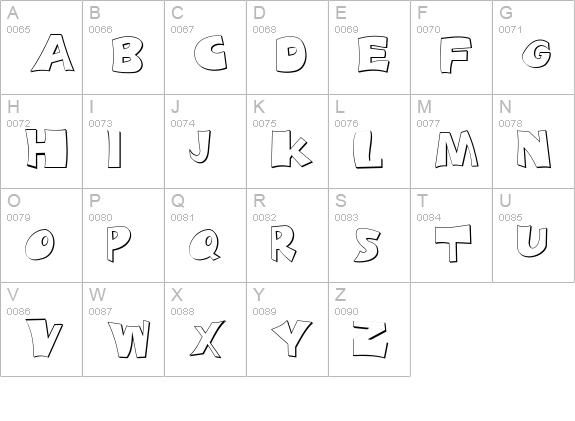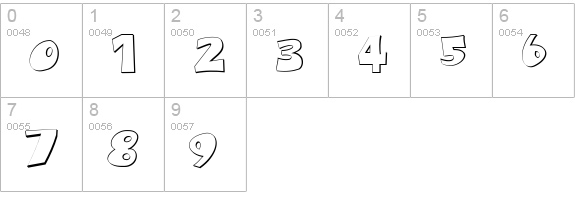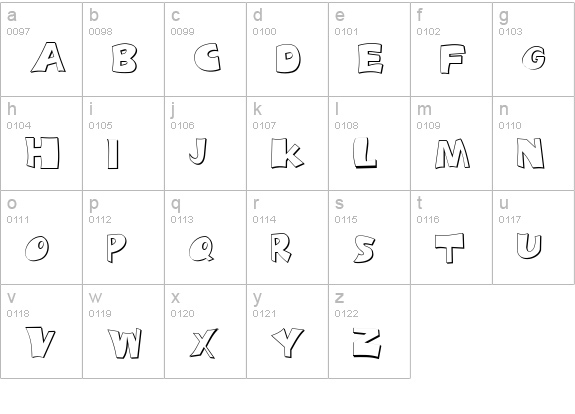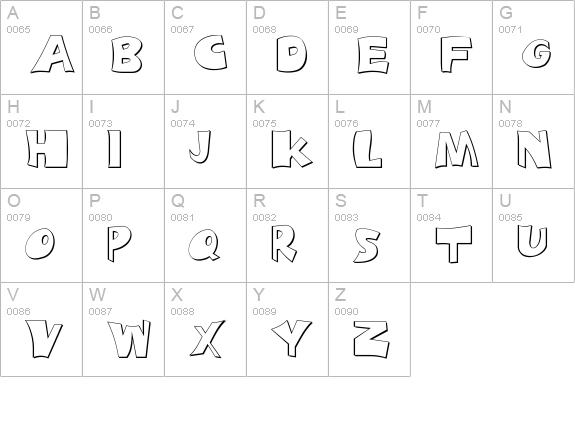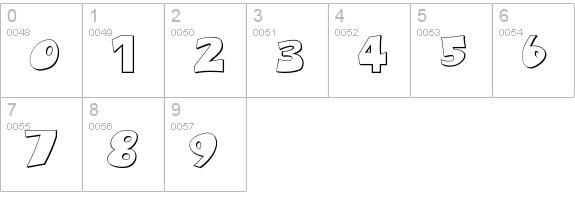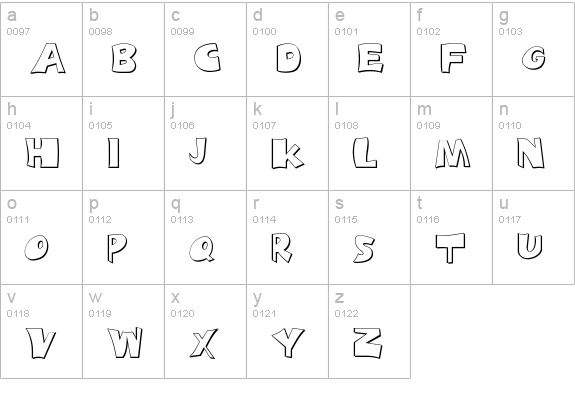
FZ JAZZY 10 3D Font Details
FZ JAZZY 10 3D font is a playful and vibrant typeface that exudes a funky and modern aesthetic. With its three-dimensional effect, this font brings a unique and dynamic touch to any design project. Perfect for eye-catching headlines, posters, and branding materials, FZ JAZZY 10 3D font is sure to make your text stand out. The best part is, this fantastic font is available for free download at FontsMarket.com! Whether you're a designer looking to add a fun twist to your creations or just someone who appreciates a good font, FZ JAZZY 10 3D is a must-have in your collection. Get your hands on this versatile and stylish font today and let your creativity shine!